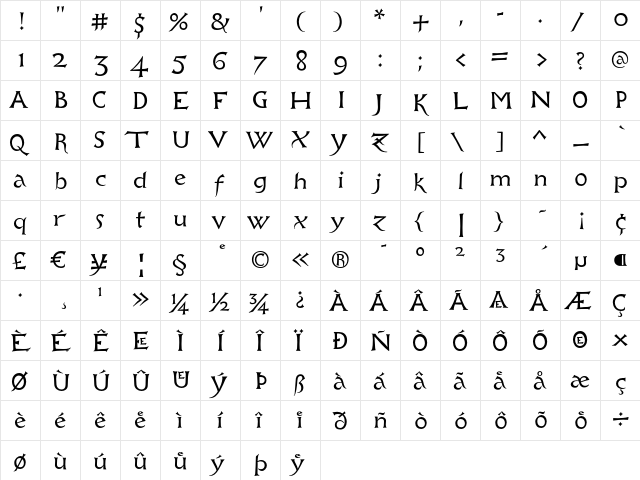
Libcziowes Regular
Design Context for Libcziowes Typeface
Libcziowes takes a measured approach to typography — its balanced proportions and neutral character make it a reliable workhorse for both digital and print work.